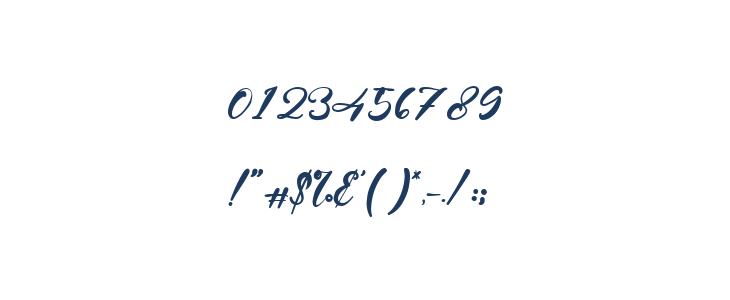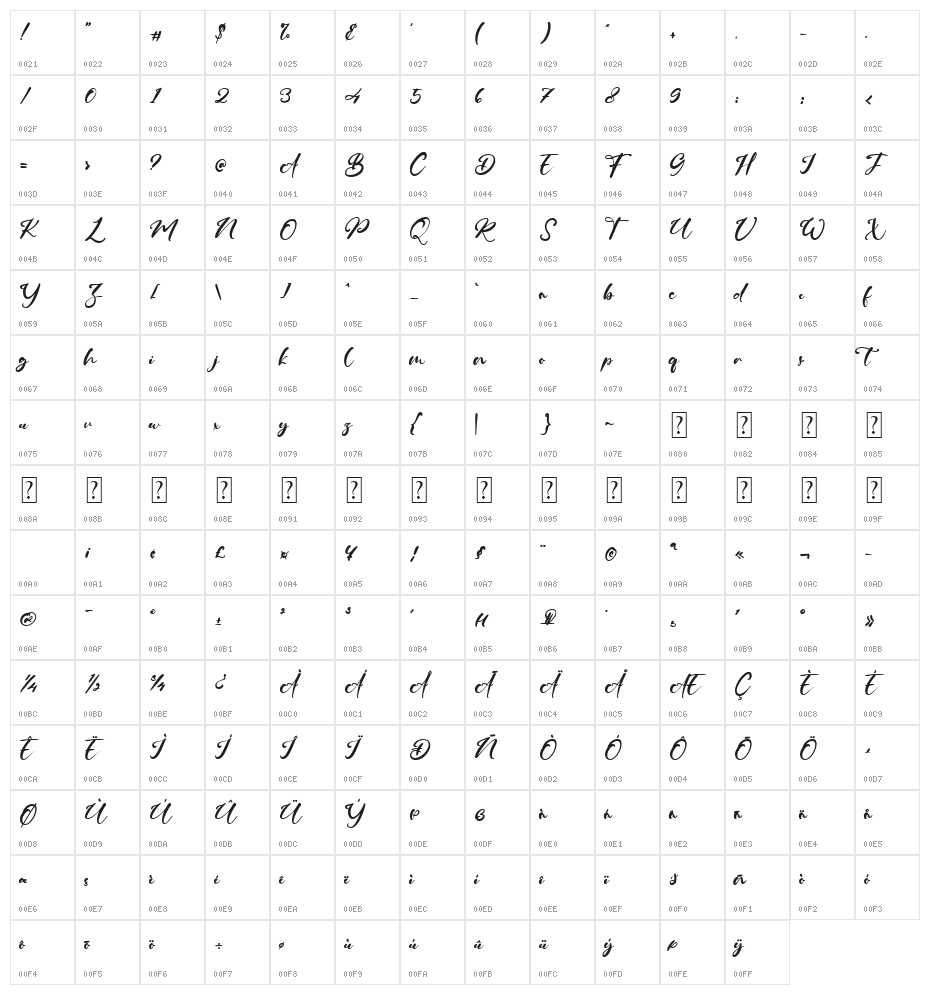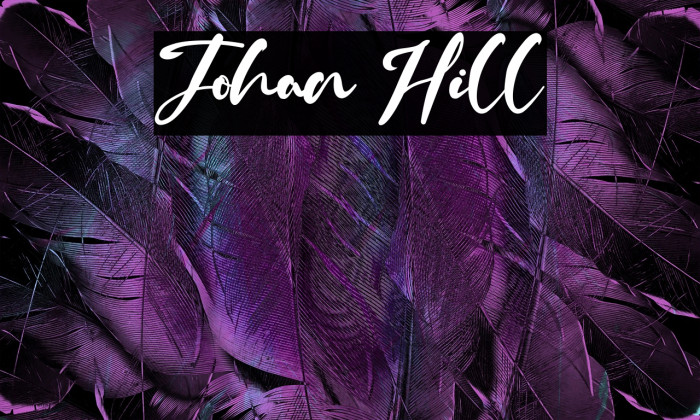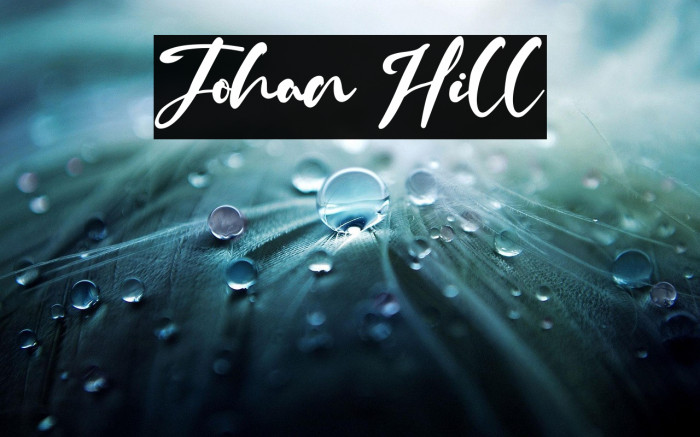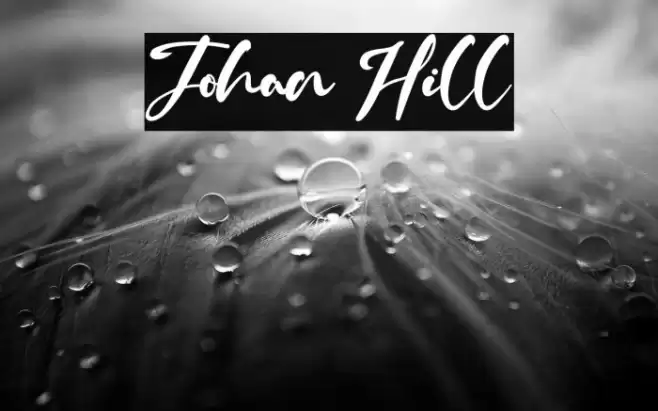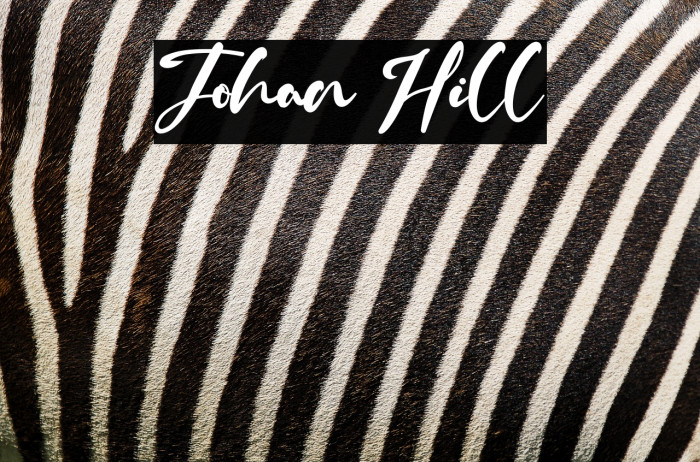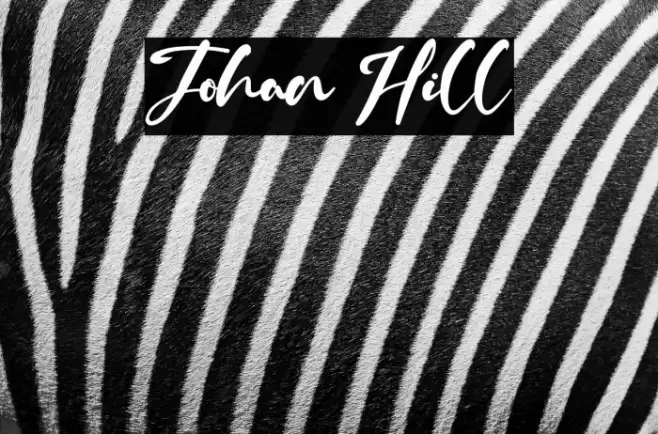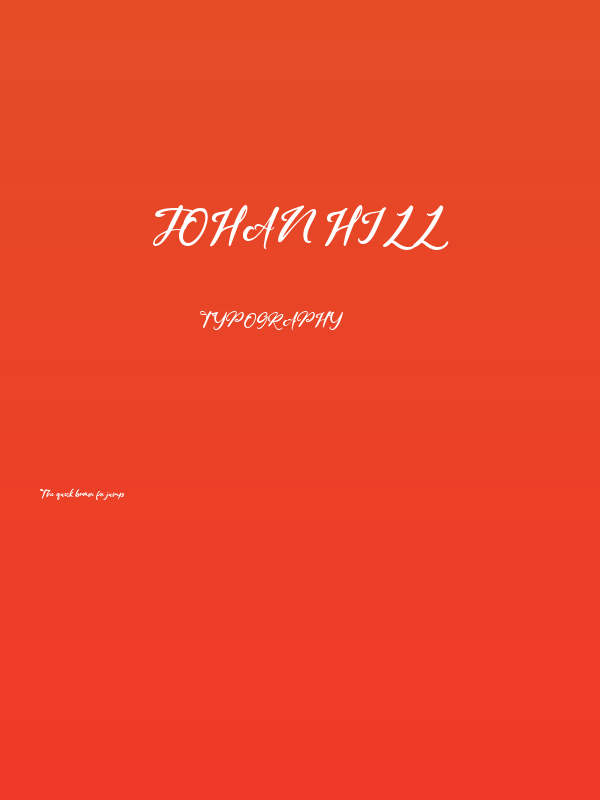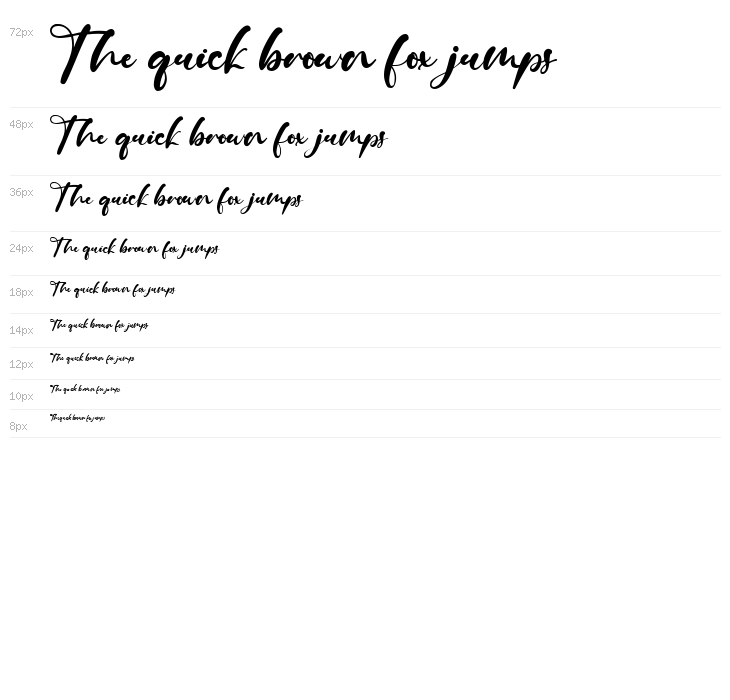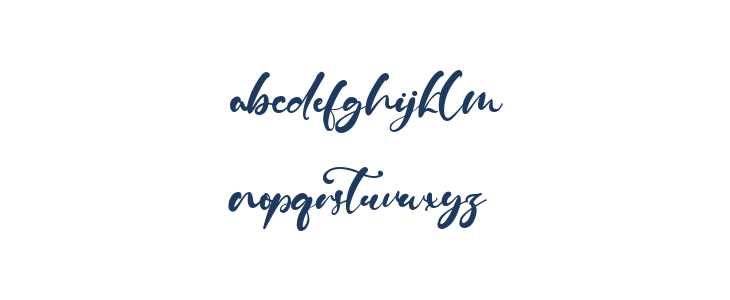
Johan Hill Font
Johan Hill Description
This elegant script font features a flowing, cursive style with smooth, rounded edges and graceful curves. The uppercase letters are bold and prominent, while the lowercase letters maintain a consistent flow, enhancing readability. The numerals are stylishly integrated, matching the overall aesthetic. Special characters are thoughtfully designed, adding versatility to the font. Its balanced weight and smooth transitions between thick and thin strokes give it a sophisticated and artistic appearance, making it suitable for a variety of creative projects.
| Proposed Projects | Ideal for wedding invitations, greeting cards, branding, and elegant logos. |